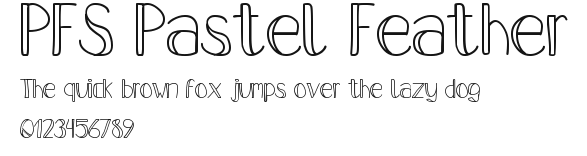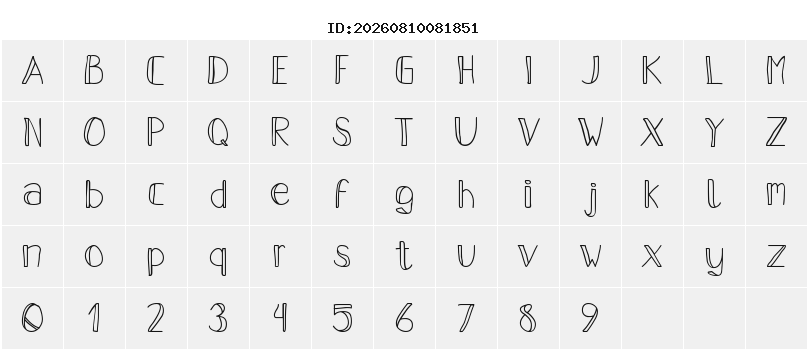
• Font Name: PFS Pastel Feather
• Full Font Name: PFS Pastel Feather
• Version: Version 1.00 April 15, 2013, initial release
• Designer: Monika Dudikeni
About PFS Pastel Feather.ttf
PFS Pastel Feather.ttf is a modern, elegant sans-serif font designed for ultimate readability and visual harmony. Perfect for branding, headlines, web design, and print materials.